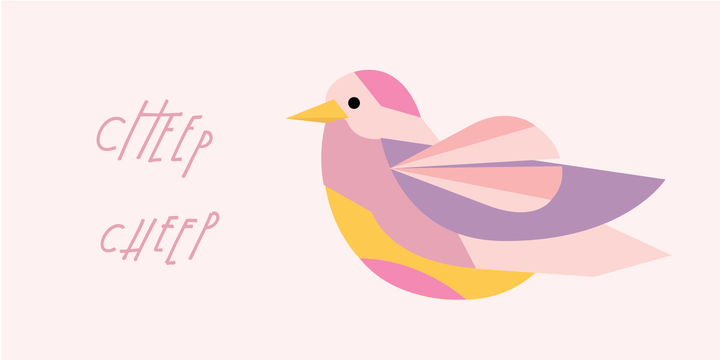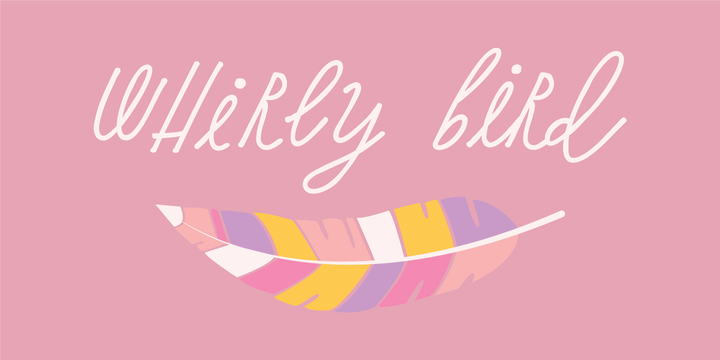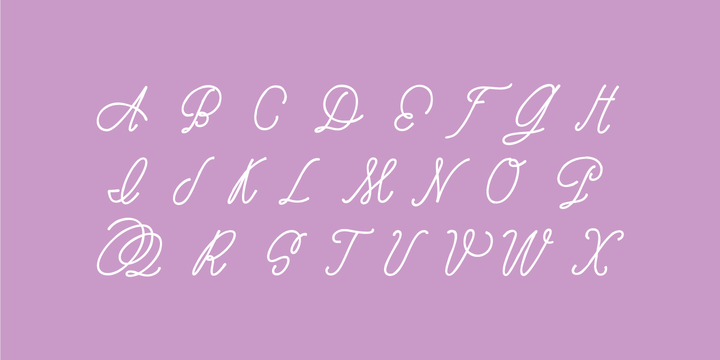
Whirly Bird was drawn by the talented Liz Bartucci of Tuccicursive and fonted by GLL. It has a playful bouncy baseline and tons of ligatures and alternate characters to capture a genuinely hand-drawn look.